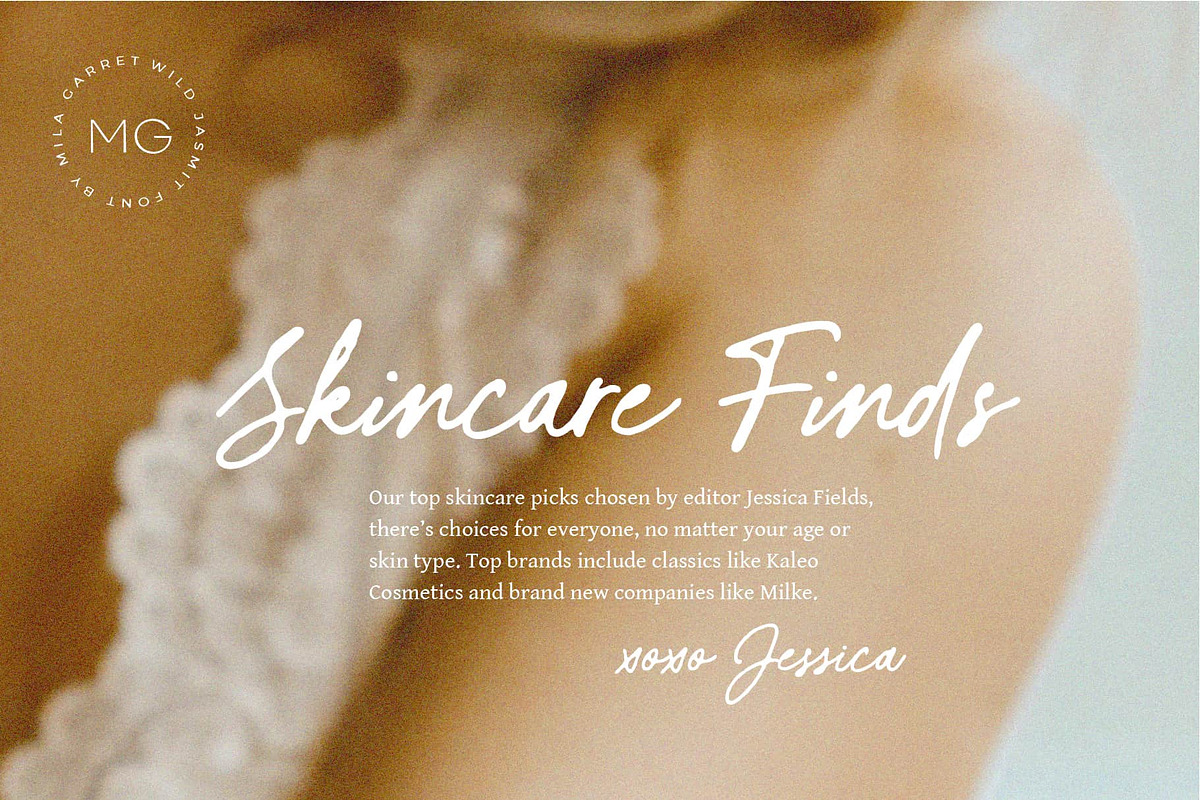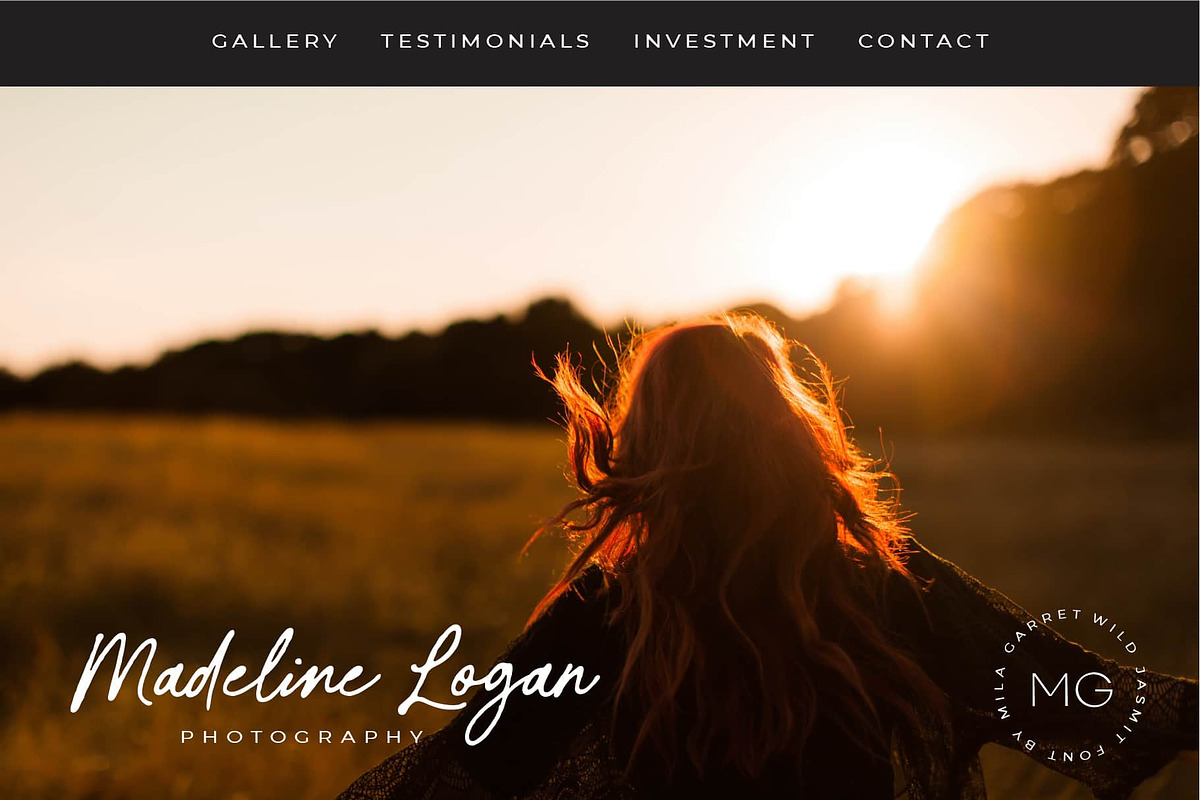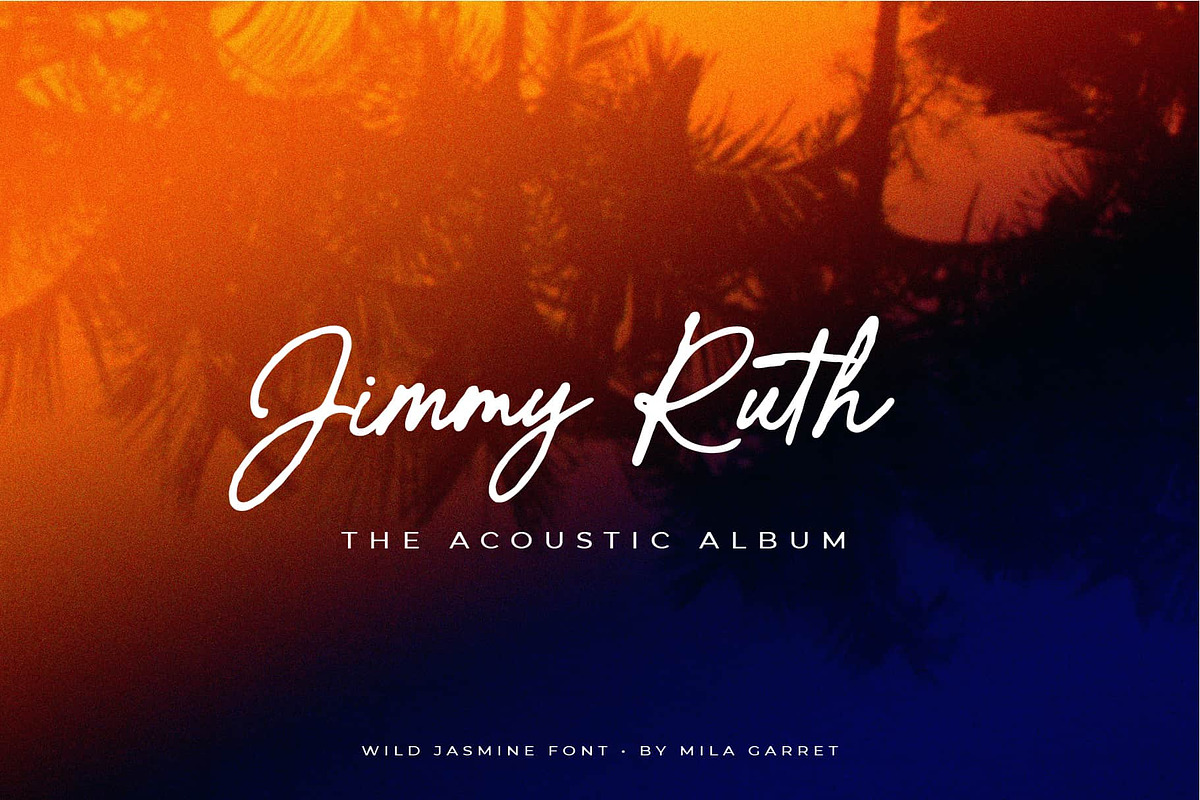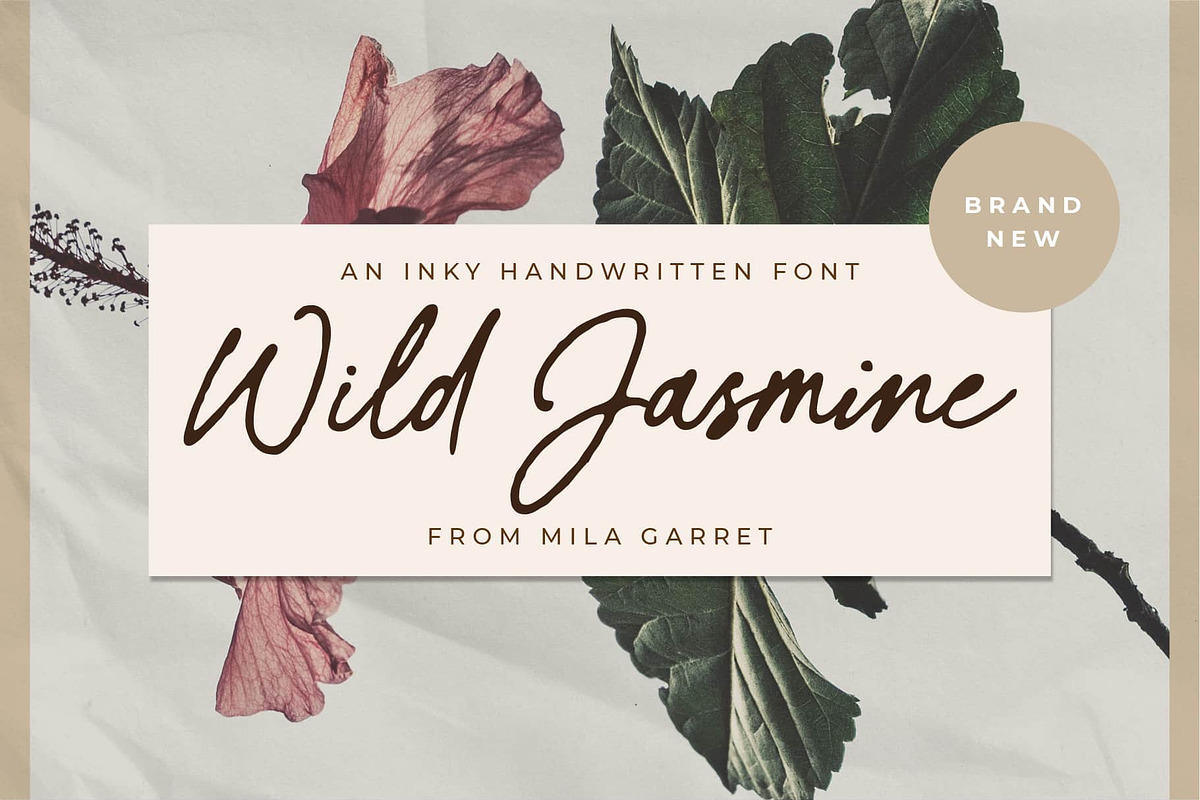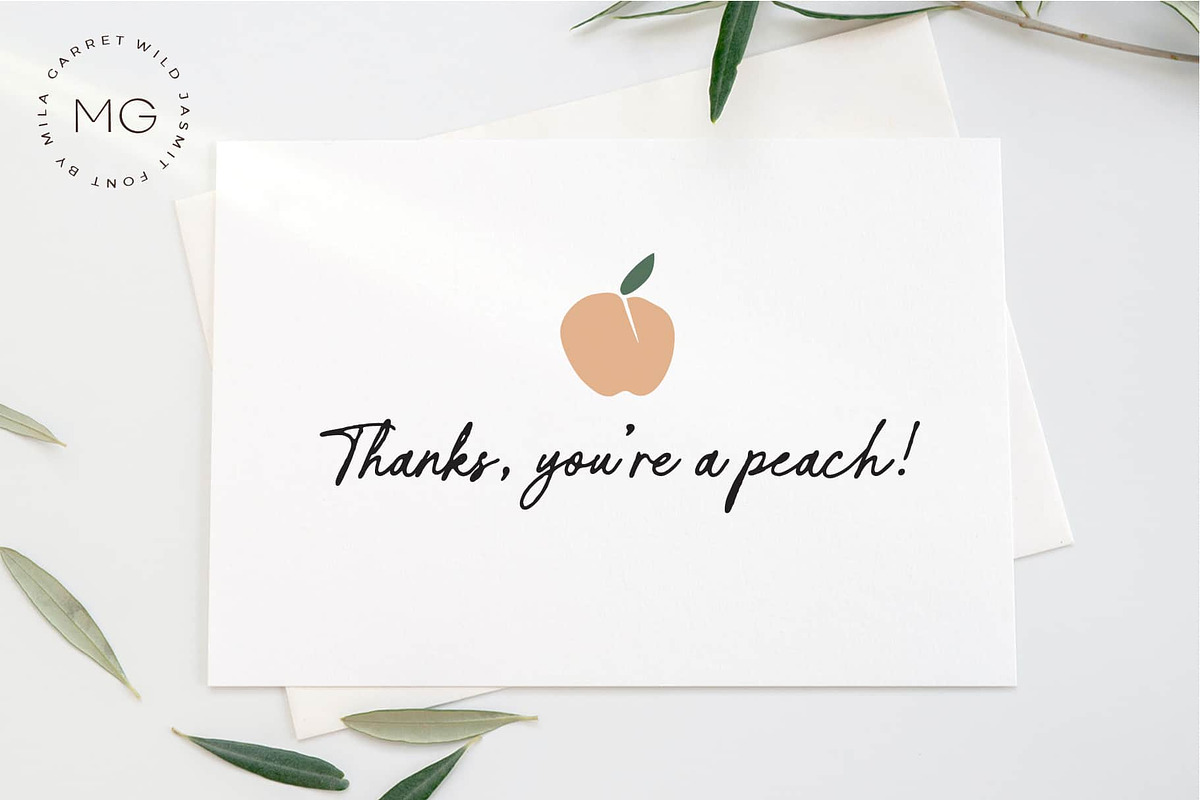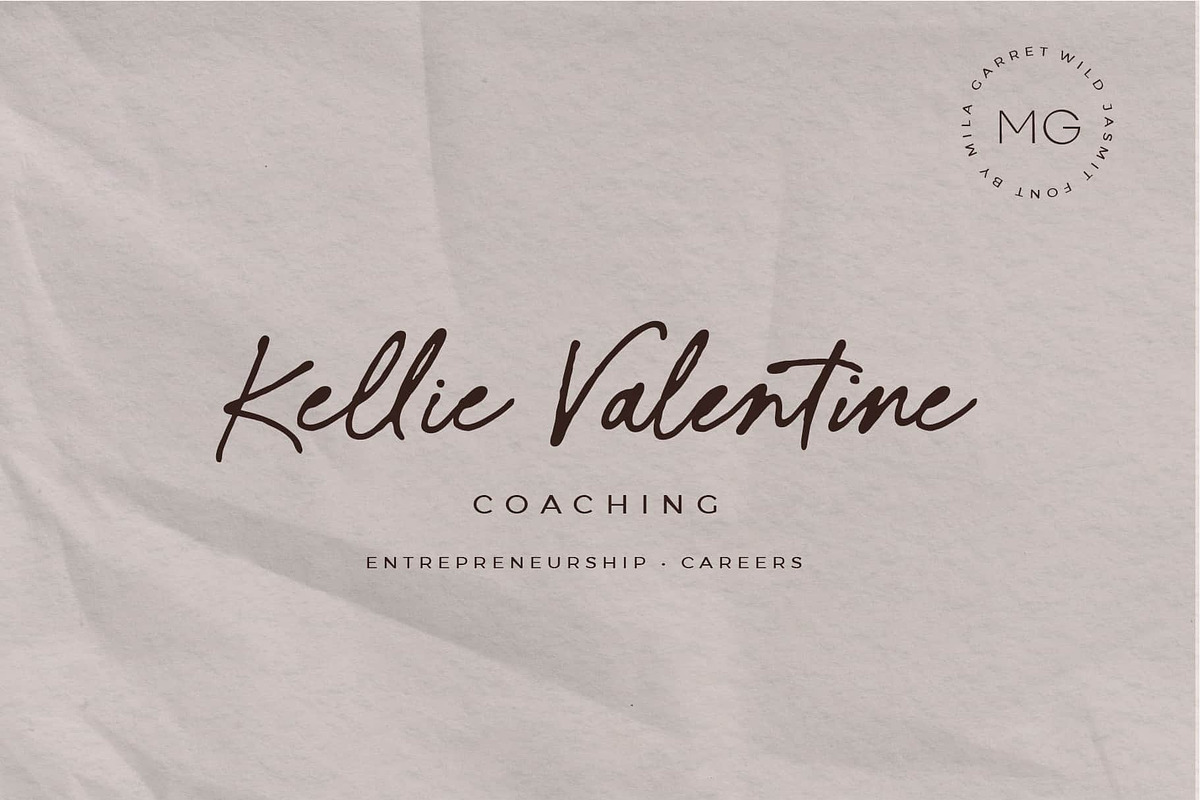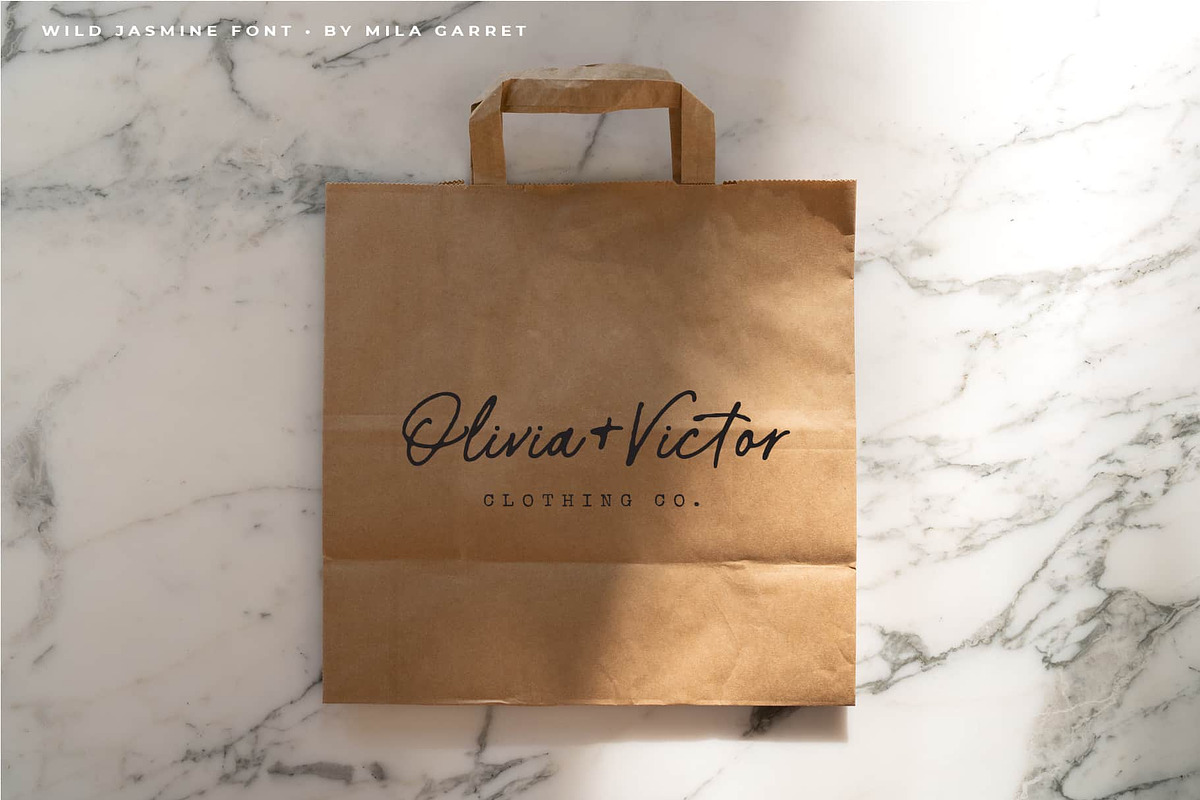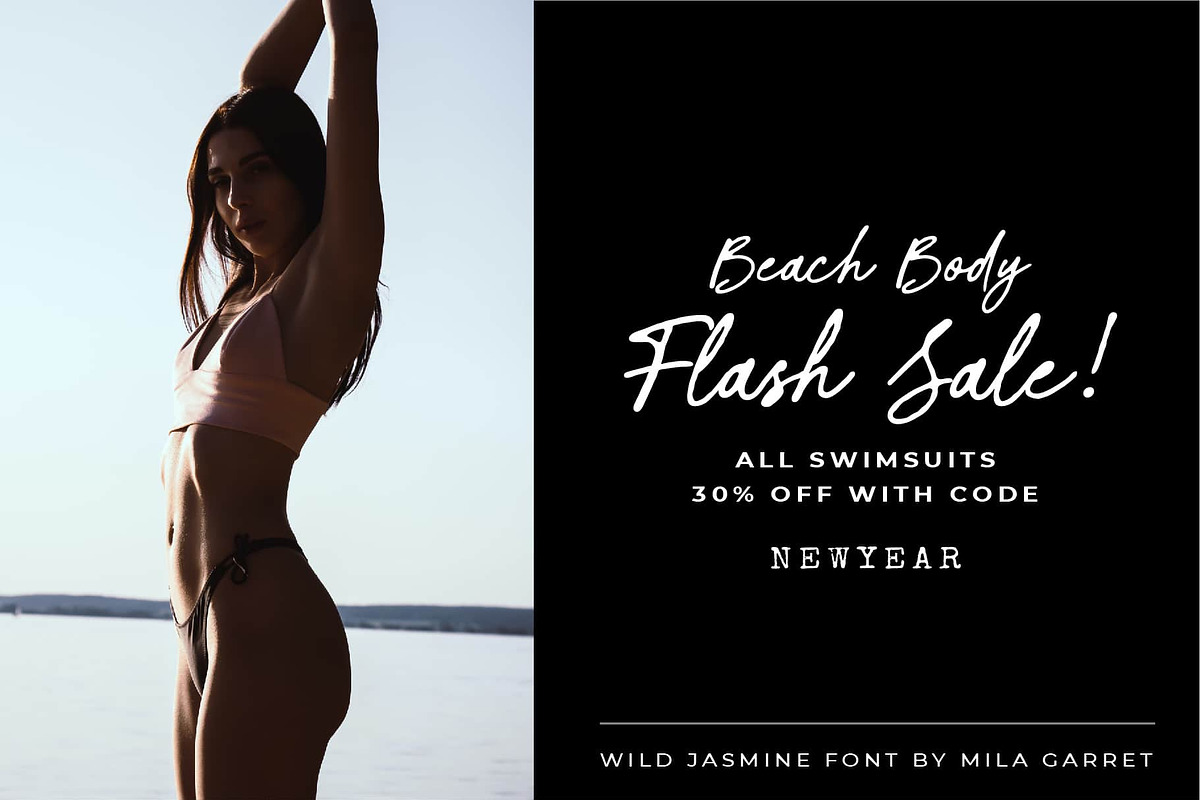
Wild Jasmine Signature Logo Script
Wild Jasmine is an inky signature script font, with a natural handwritten and slightly rough edges. With over 60 total ligatures (special double and triple letter combinations, designed to give a true handwritten feel), Wild Jasmine is perfect for minimalistic logos, editorial design, simple branding, instagram quotes, wedding stationery, packaging, websites, and more!
Wild Jasmine Features
- Full Set of standard alphabet and punctuation
- 66 Handwritten Ligatures